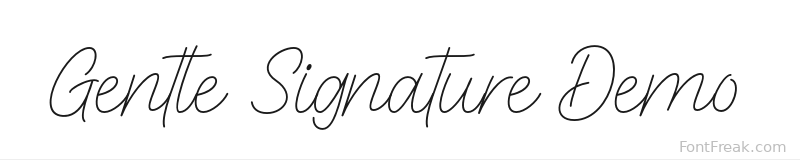
Gentle Signature Demo
About Gentle Signature Demo
Gentle Signature Demo by MJType is a beautifully crafted script font that exudes elegance and sophistication. As a handwritten typeface, it captures the organic feel of natural calligraphy, making it ideal for a variety of creative applications. The font features a delicate stroke weight with subtle contrast, which enhances its graceful appearance. The flowing curves and unique ligatures create a sense of movement, while the generous spacing between characters ensures readability, even in longer texts.
This font is particularly well-suited for wedding invitations, where its romantic flair can set the perfect tone for a special day. It also shines in branding materials for boutique businesses, giving an artisanal touch to logos and packaging. Additionally, Gentle Signature Demo works wonderfully for restaurant menus, providing an inviting and personal feel that can appeal to diners. Content creators and social media managers will find it effective for crafting engaging posts and promotional materials, as its charm can capture attention effortlessly.
Targeted towards graphic designers, small business owners, and content creators alike, this font offers a versatile solution for anyone looking to elevate their design projects. The gentle curves and inviting style make it a favorite among those who appreciate a personal touch in their work.
What truly sets the Gentle Signature Demo font apart is its ability to marry functionality with beauty. The free download option allows users to experiment with its unique qualities without commitment, making it an accessible choice for various design needs. Whether you're designing heartfelt invitations or branding for a new venture, this font provides an exquisite and personal touch that can enhance any creative project.